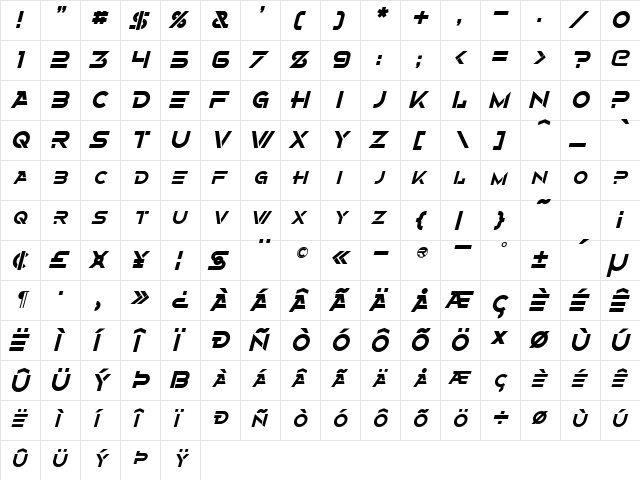
Alternity Italic
| Foundry | Pixel Sagas |
| Designer | Neale Davidson |
Design Context for Alternity Typeface
Alternity is a composed and adaptable typeface that performs quietly and consistently across a wide range of design contexts. Its italic angle brings a sense of urgency and motion to the letterforms.
Pro Tip: Try Alternity for annotation and caption copy alongside an upright companion — the contrast in angle creates a dynamic but ordered typographic system.